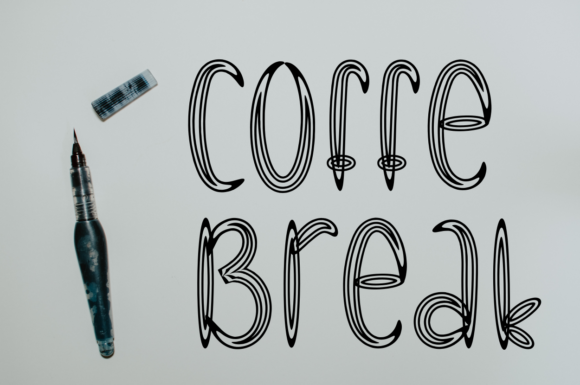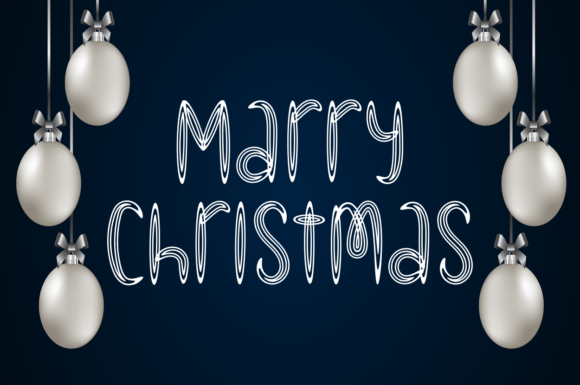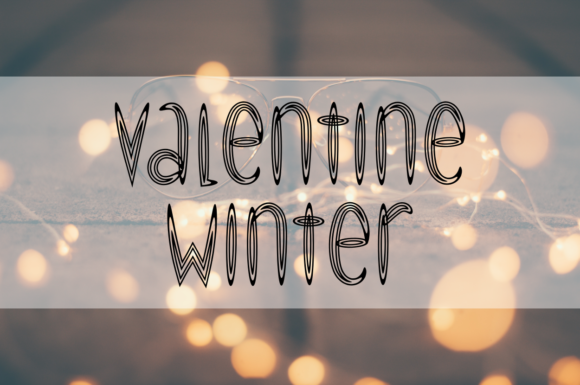
Introducing Forever Font: Elevate Your Designs with a Unique Outlined Display Font
In the world of design, fonts play a crucial role in conveying messages, evoking emotions, and setting the tone for a brand or project. With the vast array of fonts available, finding the perfect one that stands out from the crowd can be a daunting task. However, if you’re looking for a font that can add a touch of modernity and sophistication to your designs, look no further than Forever Font. This unique outlined display font is designed to make a statement, and in this article, we’ll explore its features, benefits, and uses.
What is Forever Font?
Forever Font is a distinctive outlined display font that is perfect for trendy and casual designs. Its unique outline style gives it a modern and edgy look, making it ideal for designers who want to add a touch of personality to their work. The font is highly versatile and can be used for a wide range of projects, from branding and advertising to packaging and digital media.
Key Features of Forever Font
- Unique Outlined Style: Forever Font boasts a distinctive outlined style that sets it apart from other fonts. Its clean lines and smooth curves make it highly legible and visually appealing.
- Modern and Edgy: The font’s modern and edgy look makes it perfect for designers who want to add a touch of sophistication to their work.
- Highly Versatile: Forever Font can be used for a wide range of projects, from branding and advertising to packaging and digital media.
- Easy to Read: Despite its outlined style, Forever Font is highly legible and easy to read, making it perfect for use in body text and headlines.
Benefits of Using Forever Font
So, why should you choose Forever Font for your next project? Here are just a few benefits of using this unique outlined display font:
- Adds a Touch of Modernity: Forever Font’s modern and edgy look makes it perfect for designers who want to add a touch of sophistication to their work.
- Stand Out from the Crowd: With its unique outlined style, Forever Font is sure to make your designs stand out from the crowd.
- Highly Versatile: The font’s versatility makes it perfect for use in a wide range of projects, from branding and advertising to packaging and digital media.
Use Cases for Forever Font
So, how can you use Forever Font in your designs? Here are just a few use cases:
- Branding and Advertising: Use Forever Font to create eye-catching logos, headlines, and taglines that will make your brand stand out.
- Packaging Design: Add a touch of modernity to your packaging designs with Forever Font’s unique outlined style.
- Digital Media: Use Forever Font to create engaging and interactive digital media, such as social media graphics, blog posts, and website headers.
- Crafting and Scrapbooking: Forever Font is also perfect for crafters and scrapbookers who want to add a touch of personality to their projects.
Forever is an unique outlined display font. It can be used for various trendy or casual designs, so add it confidently and you will be astounded by the results.